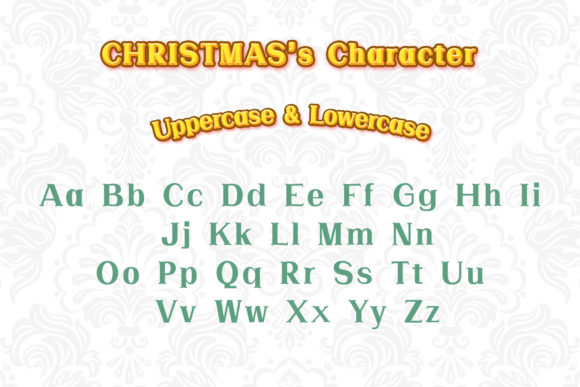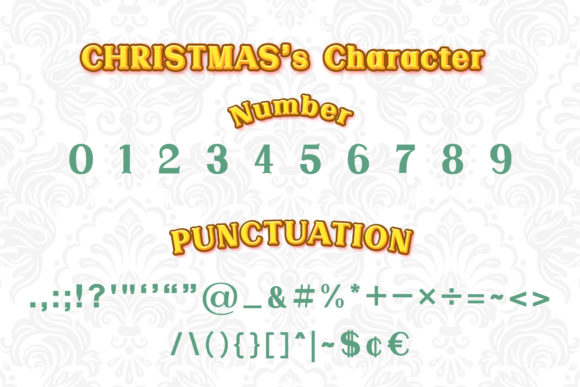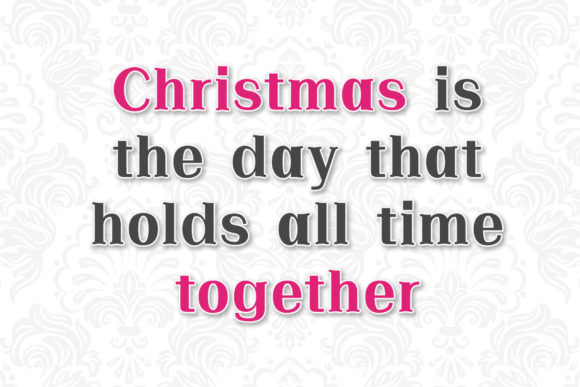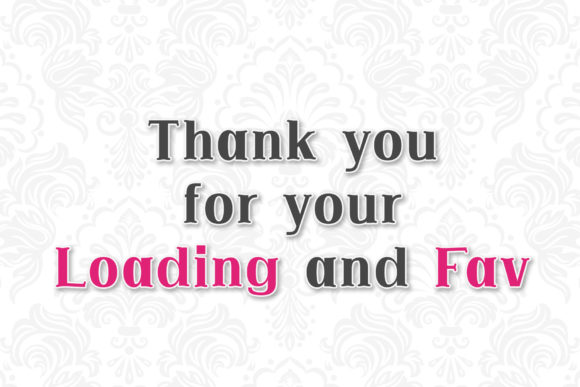
Deck the Halls with a Festive Touch
It’s that time of the year again when designers are on the lookout for the perfect font to capture the magic of Christmas. We’ve all been there – staring at our screens, scrolling through fonts, and finally, stumbling upon the one that screams ‘festive’ and ‘fun’. For many, it’s the moment of truth, and we’re excited to share with you a Christmas Font that’s sure to bring a smile to your face.
Meet the Christmas Font, a beautifully crafted serif font that’s designed to stand out in any context. Whether you’re creating a festive holiday card or a New Year’s Eve party invitation, this font is sure to add a touch of warmth and personality to your design. With its playful feel and elegant lines, the Christmas Font is a valuable addition to any designer’s toolkit.
Key Features of Christmas Font
- Unique Characteristics: Features festive and holiday-themed characters, ornaments, and symbols, making it ideal for Christmas and winter-themed designs
- Font Style: Available in both Regular and Bold styles, allowing for flexibility in design and layout
Christmas Font Review
Overall, I found “Christmas Font” to be a decent option for holiday-themed projects, but it has its strengths and weaknesses.
- Unique and festive design: The font has a distinct, whimsical feel that captures the essence of the holiday season.
- High-resolution images: The font’s images are clear and crisp, making them suitable for use in various digital applications.
- Customizable: The font comes with a range of customization options, allowing designers to tailor the look to suit their specific needs.
- Limited character set: The font’s character set is relatively small, which may limit its use in longer texts or for certain languages.
- Not ideal for small text: The font’s design may not be suitable for use in small text sizes, as the details can become lost.
Overall, I would recommend “Christmas Font” for projects where a unique, festive look is required, but be aware of its limitations and potential usage restrictions.
Some common use cases for Christmas Font include:
– Creating holiday greeting cards or invitations
– Designing festive social media posts or advertisements
– Creating custom graphics or titles for holiday presentations or documents
– Adding a touch of festive flair to your website or blog
Tips for Getting the Most Out of Christmas Font
Some tips for getting the most out of Christmas Font include:
– Experiment with different font sizes and styles to create a cohesive look
– Use the font in combination with other festive graphics or images
– Consider using the font in a variety of colors to add visual interest
– Don’t be afraid to get creative and have fun with it!
Alternatives to Christmas Font for Designers
Bethlehem
Bethlehem is a classic, elegant script font perfect for creating a warm and inviting atmosphere. It is ideal for use in wedding invitations, holiday cards, and other special occasion designs. Compared to Christmas Font, Bethlehem has a more refined and sophisticated look, making it suitable for more formal designs.
Carolyna Pro is a modern, elegant script font that is perfect for creating a luxurious and high-end look. It is ideal for use in high-end product packaging, luxury branding, and other premium designs. Compared to Christmas Font, Carolyna Pro has a more contemporary and sophisticated feel, making it suitable for more upscale designs.
Great Vibes is a beautiful, elegant script font that is perfect for creating a warm and inviting atmosphere. It is ideal for use in wedding invitations, holiday cards, and other special occasion designs. Compared to Christmas Font, Great Vibes has a more fluid and organic feel, making it suitable for more creative and artistic designs.